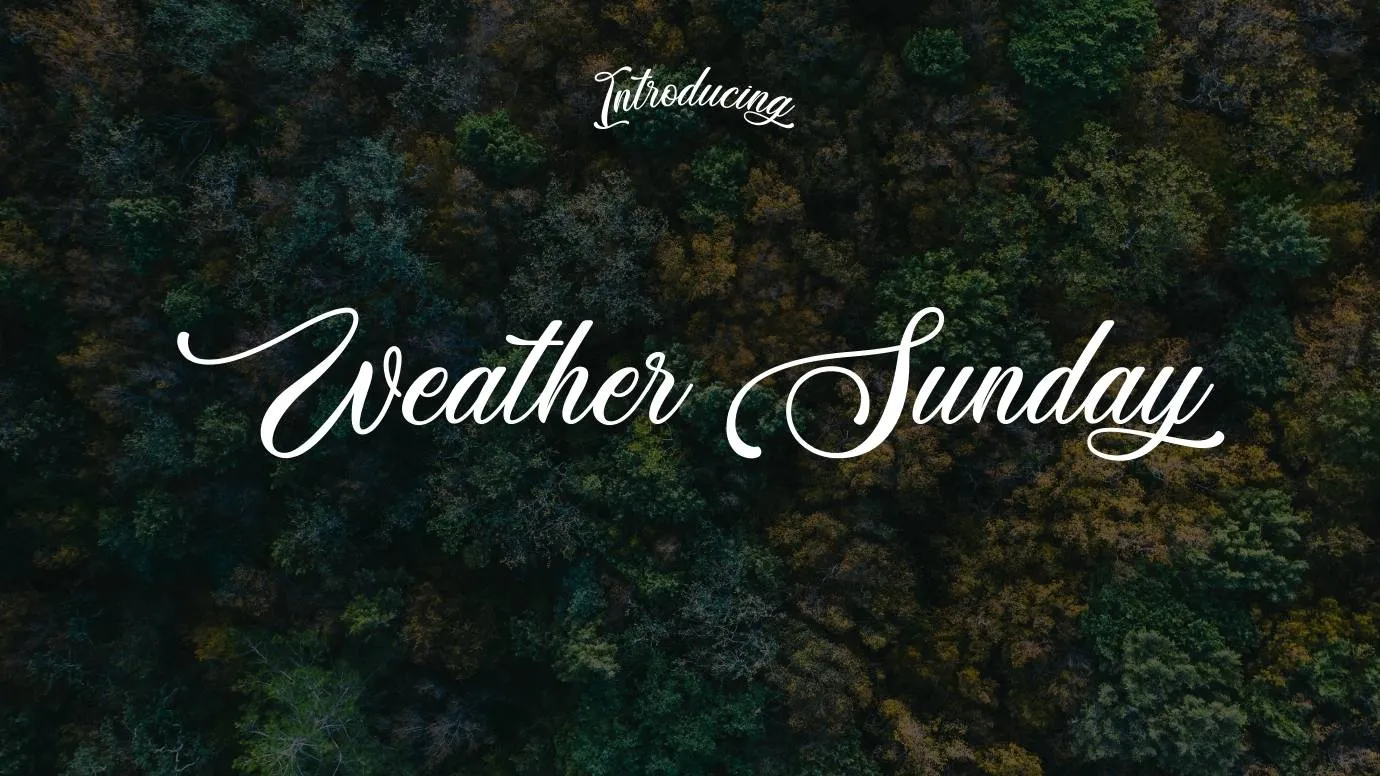
Weather Sunday Font Family is a modern calligraphy typeface that has long and stylish swashes. Suthi Srisopha is the original manufacturer of this texture. This typography is perfect for use in HTML and CSS.
| Name | Weather Sunday Font |
| Designer | Suthi Srisopha |
| Type | Calligraphy |